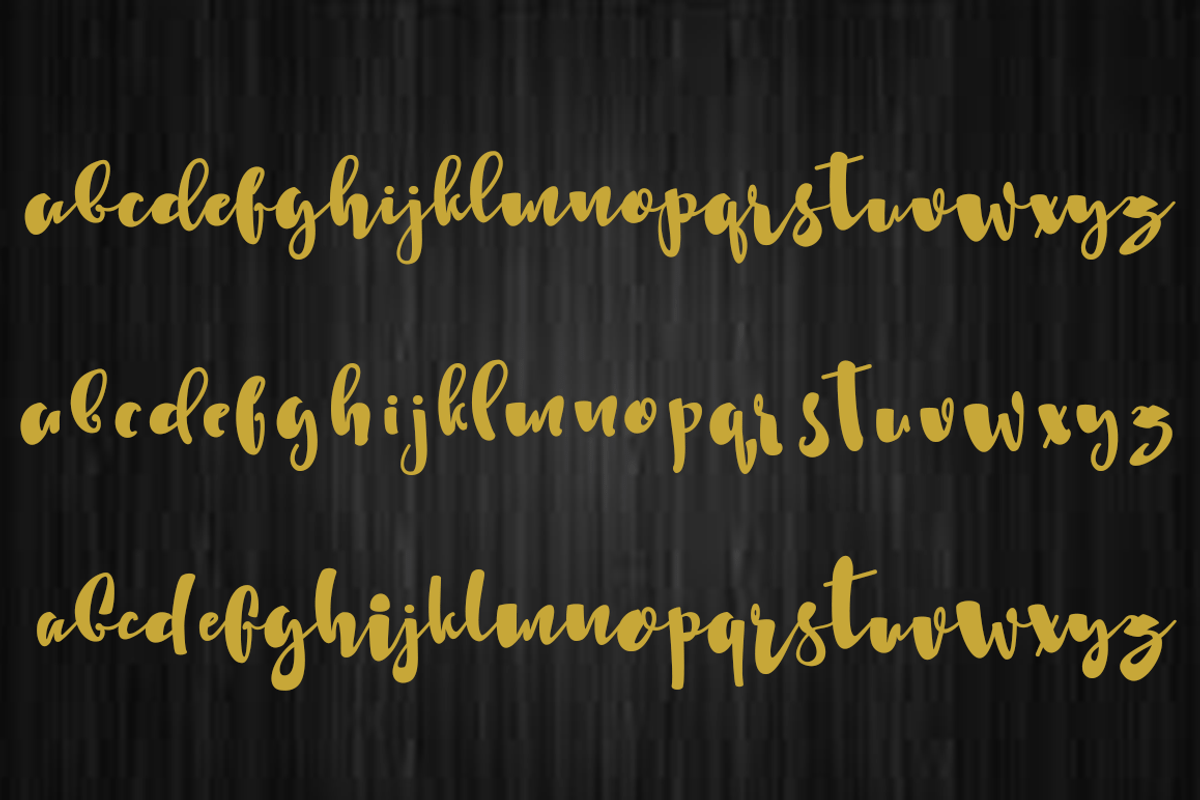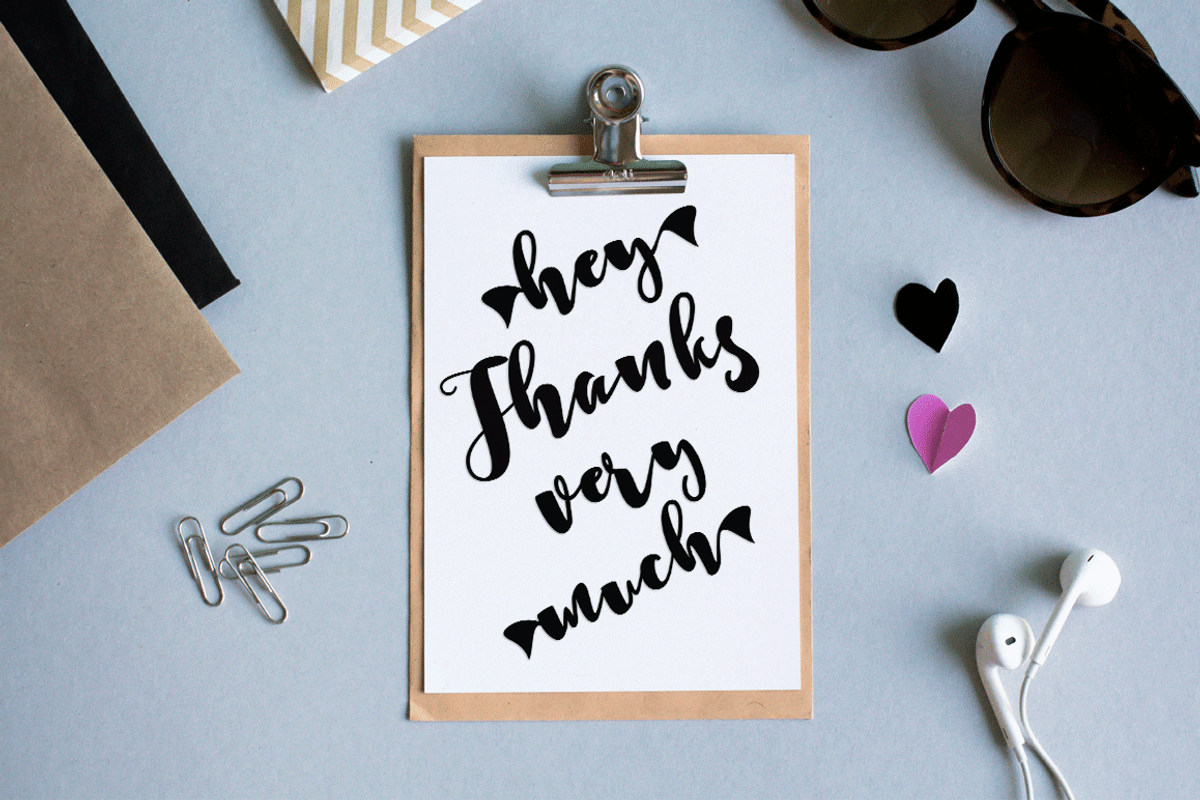
Violette
Violette the funcy font. This font was designed by handwriting, and it has a modern andunique forms of calligraphy, the writing style is very natural.
The Features of this fonts is;
- Standart ligatures
- Contextual Alternates
- Stylistic sets